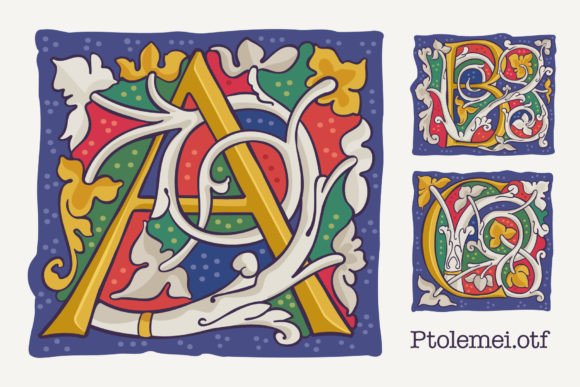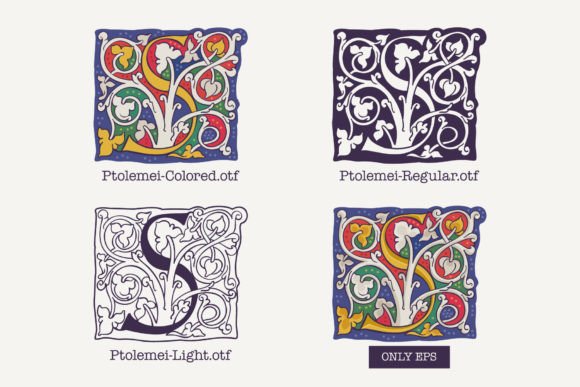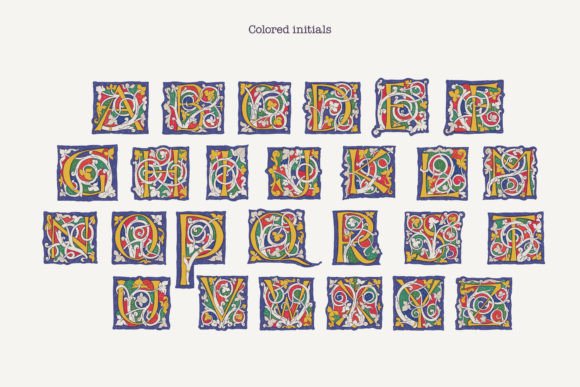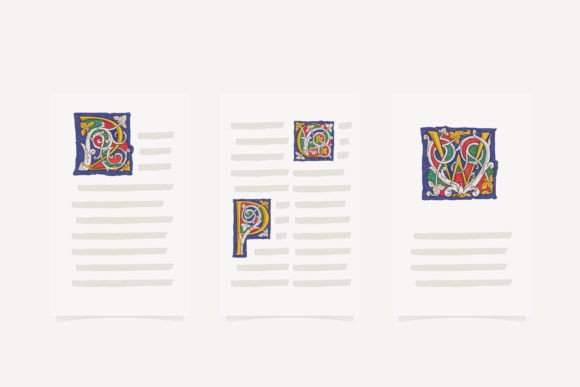
Ptolemei Font: Ornate Vintage Typography for Monogram & Logo Design
About the Ptolemei Font
Let us introduce you to Ptolemei Font, where timeless design meets modern craftsmanship. Ptolemei is a classic and ancient font that exudes elegance and tradition. With its intricate and ornate details, this font is perfect for creating monograms and designs that evoke a sense of history and prestige. Embrace the timeless beauty of Ptolemei and create truly unforgettable designs.
Ptolemei’s ornate style is ideally suited for headlines, logos, and short-form text within branding materials, invitations, or certificates where its elegance can shine. It excels in creating a sense of luxury and sophistication. However, its intricate details make it unsuitable for body text or long paragraphs; readability suffers at smaller sizes. Avoid using it in user interfaces or situations demanding high legibility.
Pairing Ptolemei effectively requires careful consideration. A clean sans-serif like Helvetica Neue provides a strong contrast, grounding the ornate details. For a warmer feel, a classic serif such as Garamond offers a harmonious balance, maintaining a traditional yet modern feel. Avoid pairing it with other highly decorative fonts as this will create visual clutter.
Ptolemei projects an air of refined elegance and timeless sophistication. It’s best suited for brands and projects that seek to convey prestige, heritage, or a sense of classic beauty. Think luxury goods, historical societies, or high-end events.
Ptolemei Font Usage Examples
Ptolemei Font Example